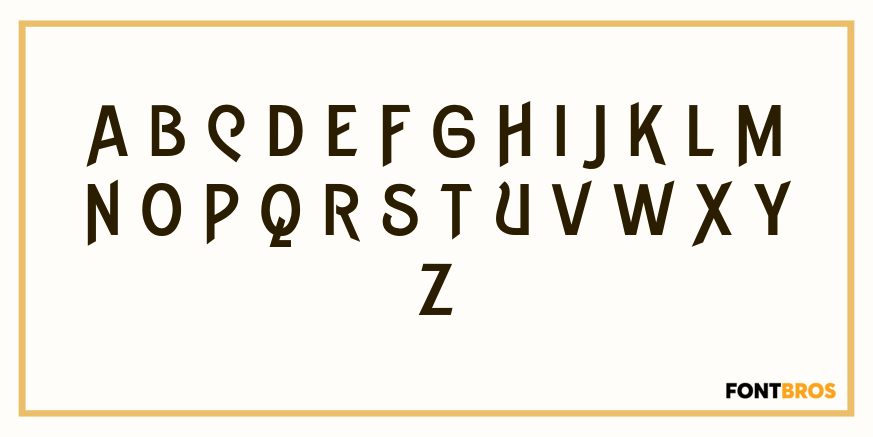
Cabaret
Font Family by Solotype
We've always liked Art Gothic (you've seen it on the titles and credits for TV's Murder She Wrote) but felt it was far too animated for most uses.
Here is our super-simplified version, a calmer font that will fit many display uses.